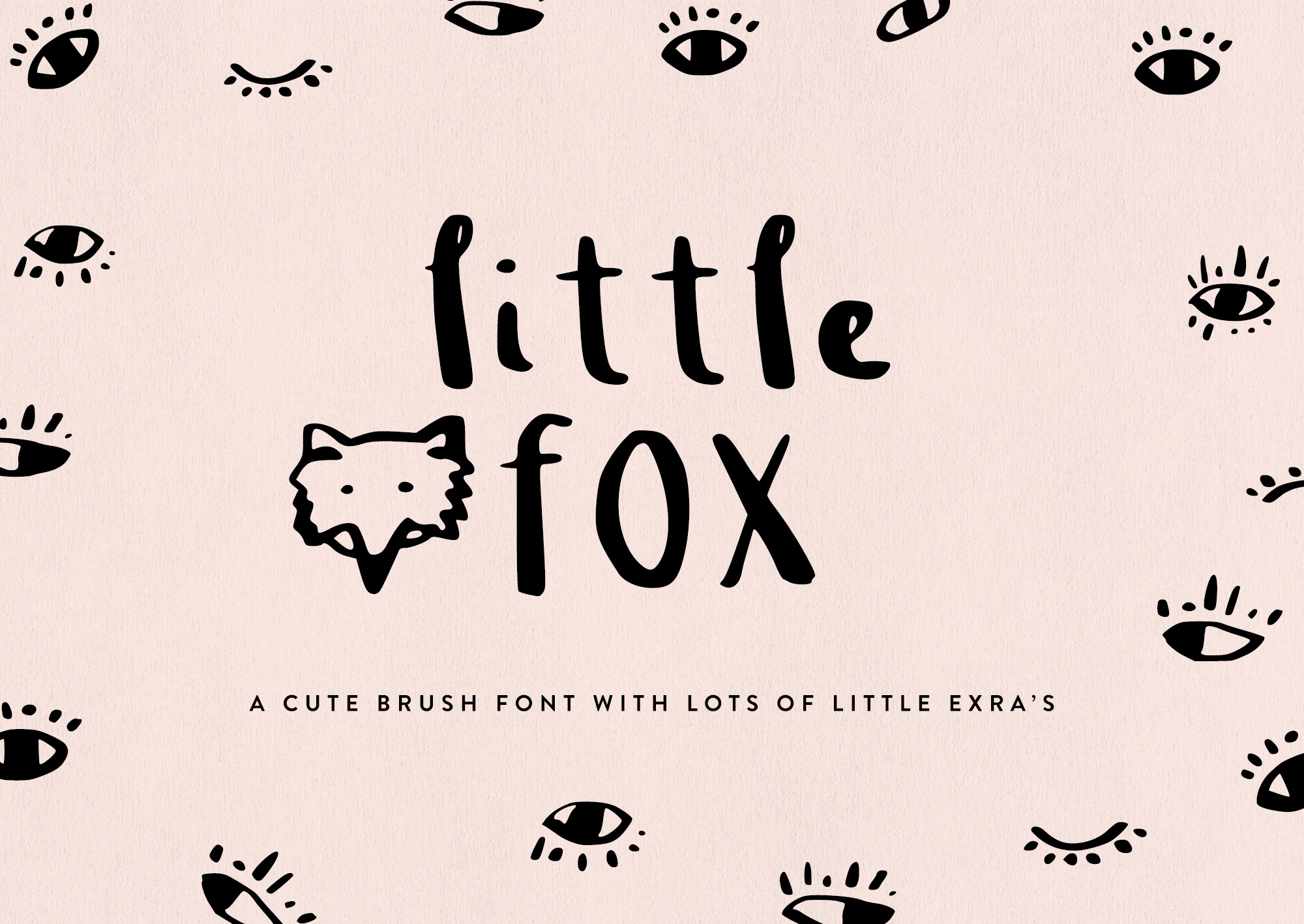
Little Fox Brush Font
Introducing Little Fox brush font! Super cute and fun, perfect for print's and poster's. Also great on greeting cards, branding material, labelling, clothing etc!
Little fox comes with a whole extra uppercase and lowercase alphabet full of extra elements and illustrations. These little guys are perfect for creating patterns, adding cute icons to your greeting cards or making framed prints for your desk.
Little Fox comes in uppercase and lowercase with 52 add-on elements and illustrations. It also comes with reference PDF for add-ons!
Find your favourite quote, play around with font sizes, words and add-on elements to create type based cards, pretty poster's or framed prints.